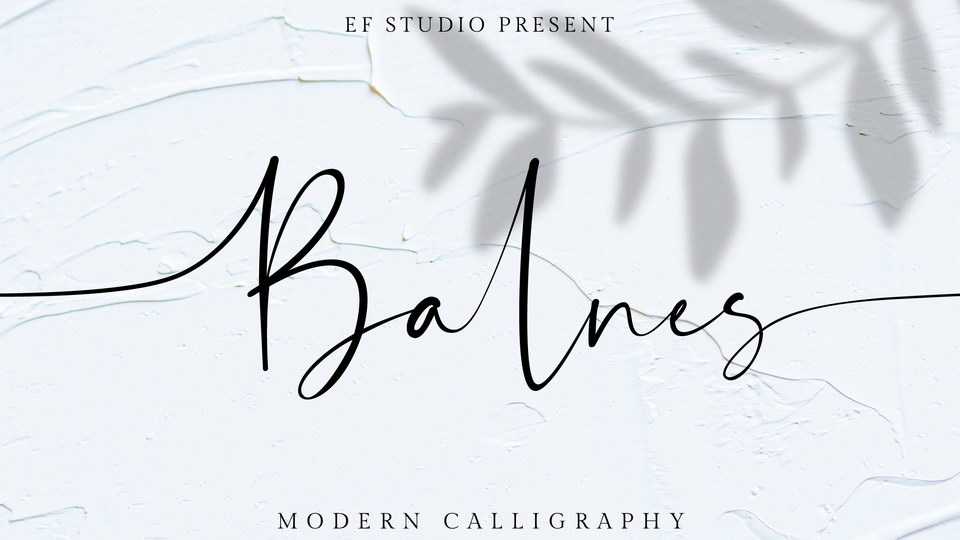
Download Balnes font, a modern, sophisticated script with ligatures and stylistic set that add a sophisticated and unique impression. Balnes Script is suitable for branding, invitations, watermarks, photography, labels and movie posters.
Designer: Ef Studio